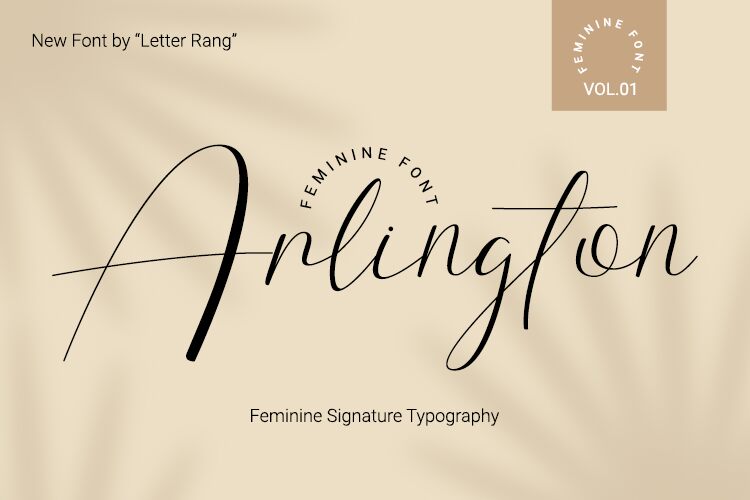
Arlington Script
Arlington Script, designed by Rangga Putra Budi Pratama, is a stunning calligraphy font that is perfect for any elegant project. With its light weight and graceful curves, this font exudes sophistication and class. It's suitable for wedding invitations, luxury branding, and high-end editorial designs. Arlington Script adds an air of refinement to any project it graces with its presence. Its delicate strokes are reminiscent of a fine penmanship that will make your work stand out from the rest. Give your next design project that extra touch of elegance with Arlington Script – a timeless classic in the world of typography.